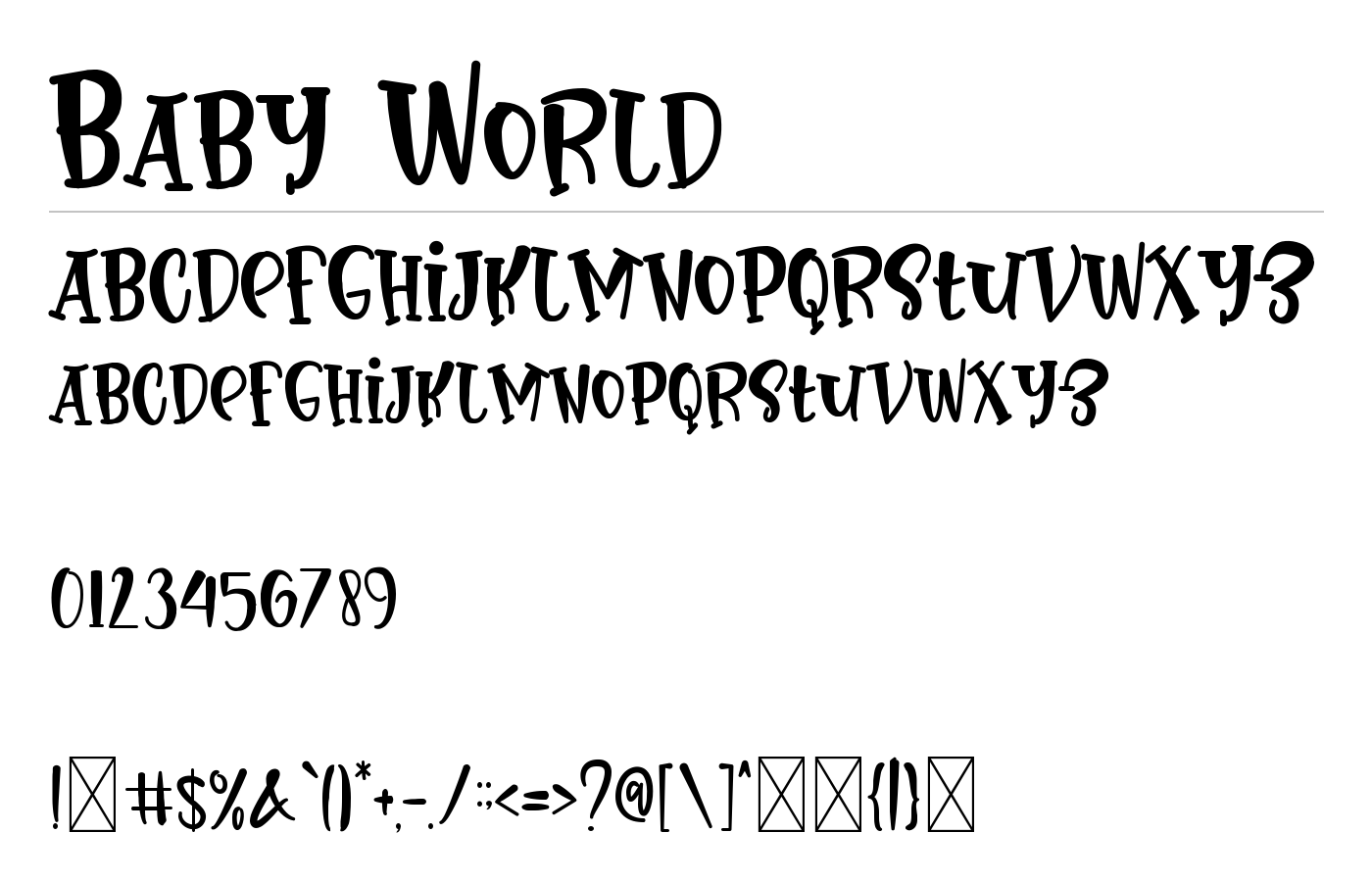
Baby World Font is a playful and whimsical sans serif typeface with a hand-drawn feel, featuring irregular strokes and charmingly quirky letterforms. Its lively style, moderate weight, and tall x-height make it ideal for projects aimed at children or casual, fun branding such as kids' products, party invitations, or playful logos. This font effectively conveys a friendly, approachable personality that adds warmth and creativity to any design.
Baby World Font
About Baby World Font